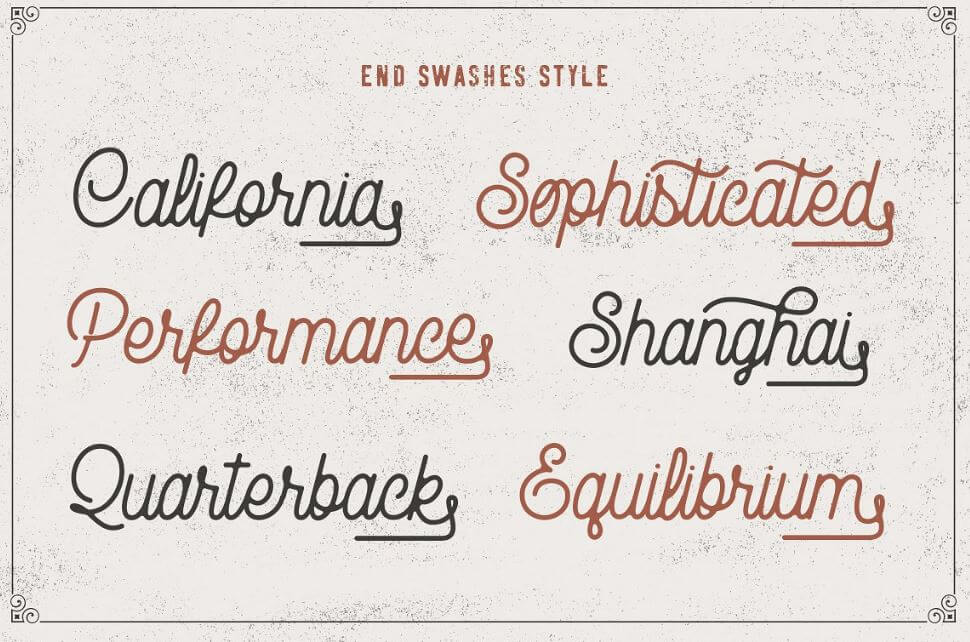
Rampage Monoline Script Font
The Rampage monoline Script font is charming and delightful. It also has a sweet, fashionable, and vintage monoline touch. The script style of this font is available in both regular and rounded versions.
It can be used to label the pictures asĀ eurostile watermark. Rampage has a stylish, unique and lovely. As a show which makes it perfect for all branding tasks and logos.
Style Of Rampage Monoline Script Font